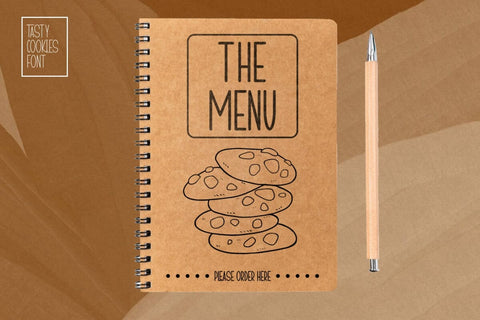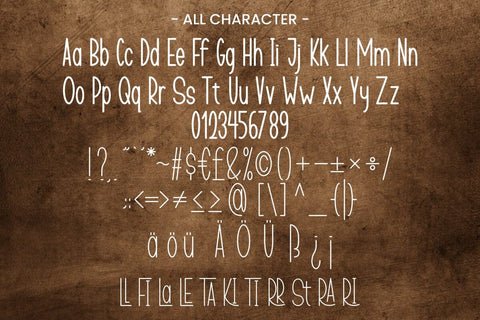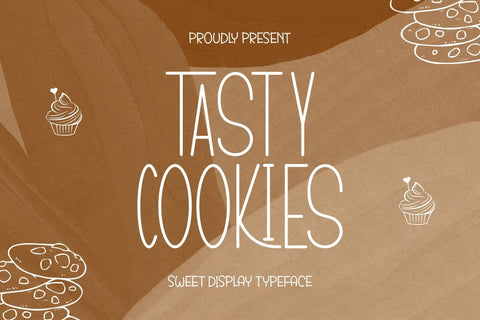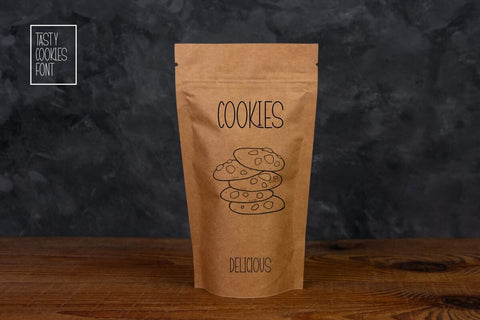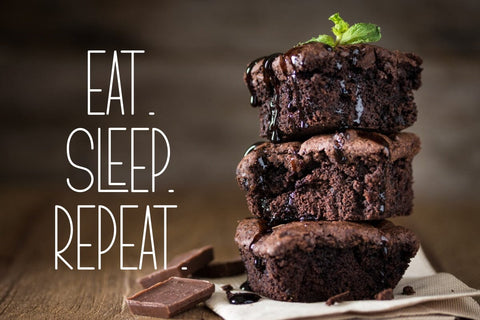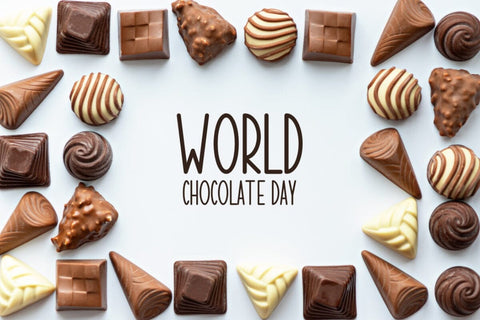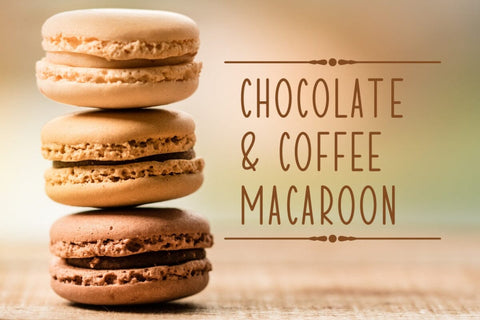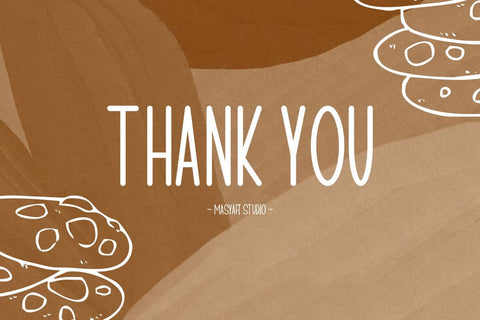
Tasty Cookies - Sweet Display Font
Hi, Introducing Tasty Cookies - Sweet Display Font
A display font with a line style that is touched with a sweet and cute taste. This font is cool for creative project needs such as crafts, quotes, stickers, labels, typography, branding, food business, logos, social media, book covers and many other creative ideas.